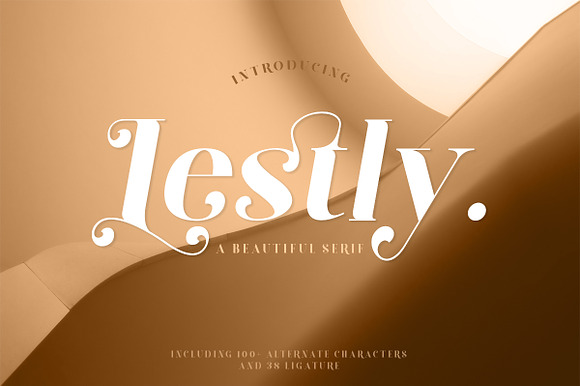
Lestly Fonts
Lestly Fonts by Muntab_Art is a font selected for branding, posters, packaging, typography.
Why Lestly Fonts is worth a look
Lestly Fonts by Muntab_Art fits naturally into Branding, posters, packaging, typography.